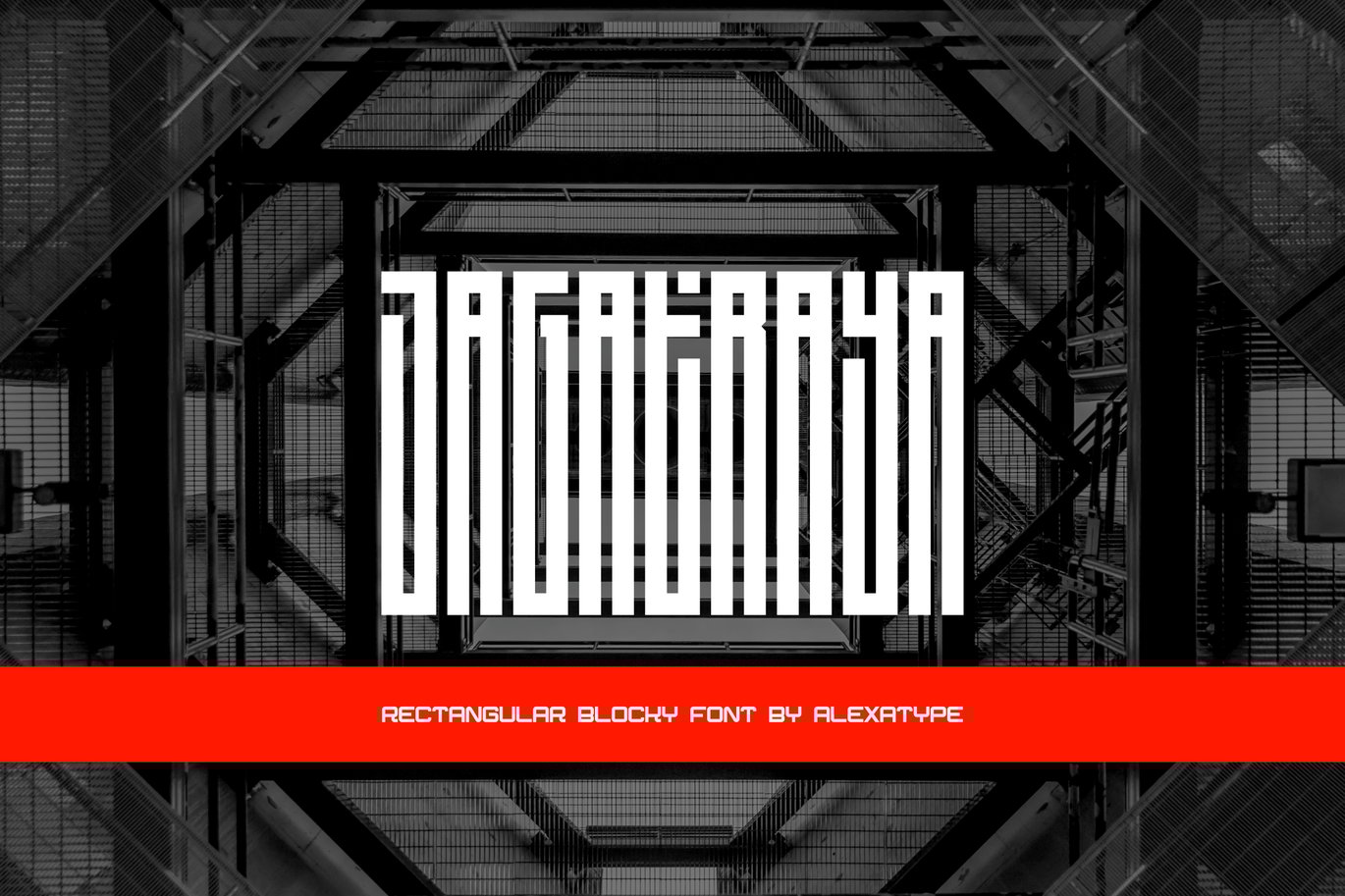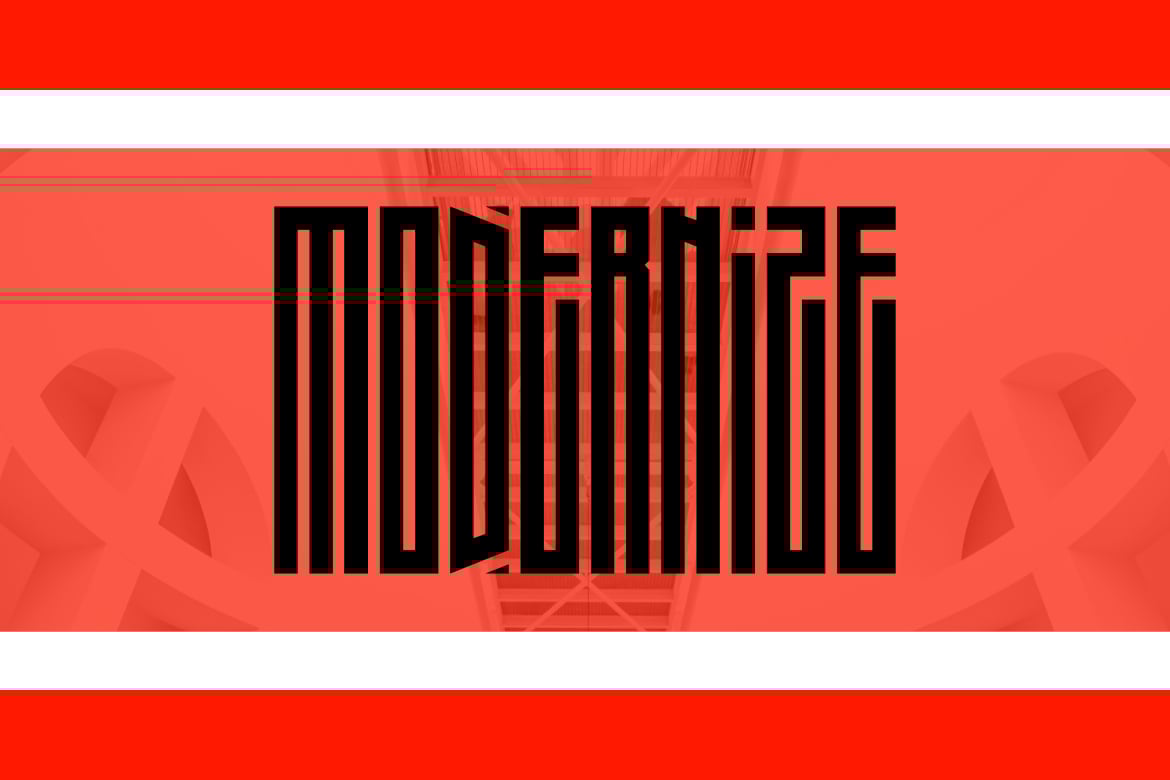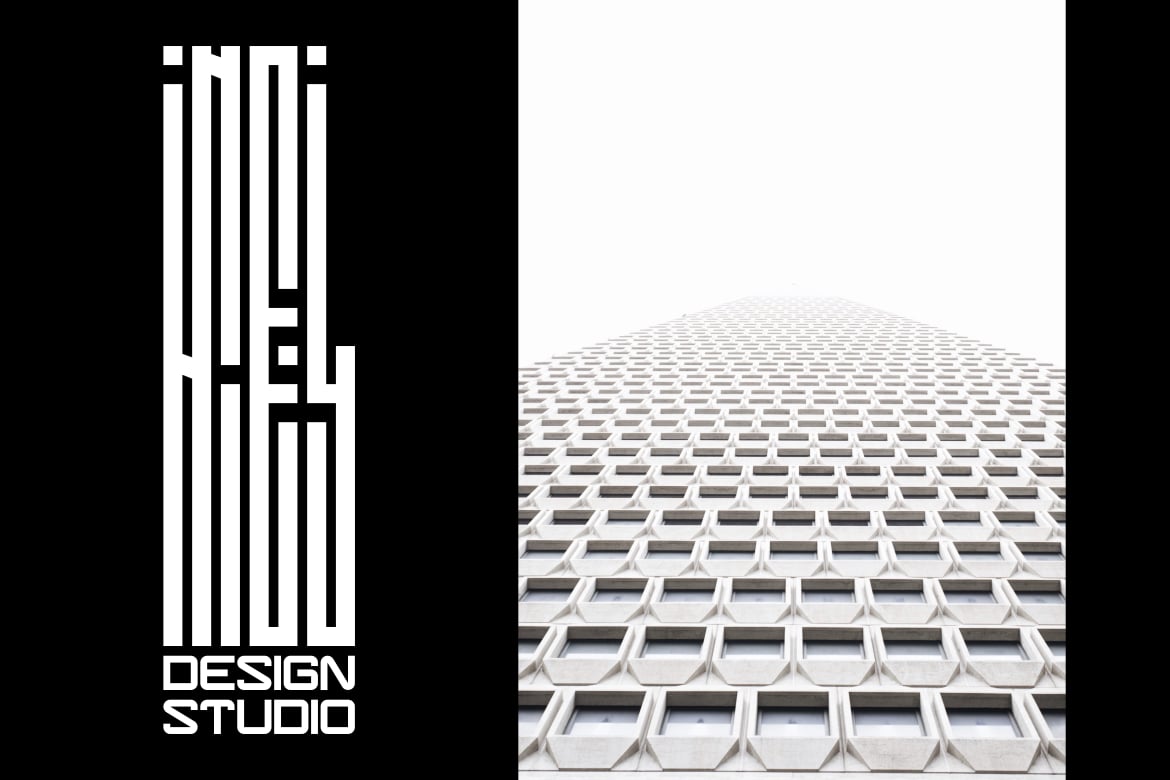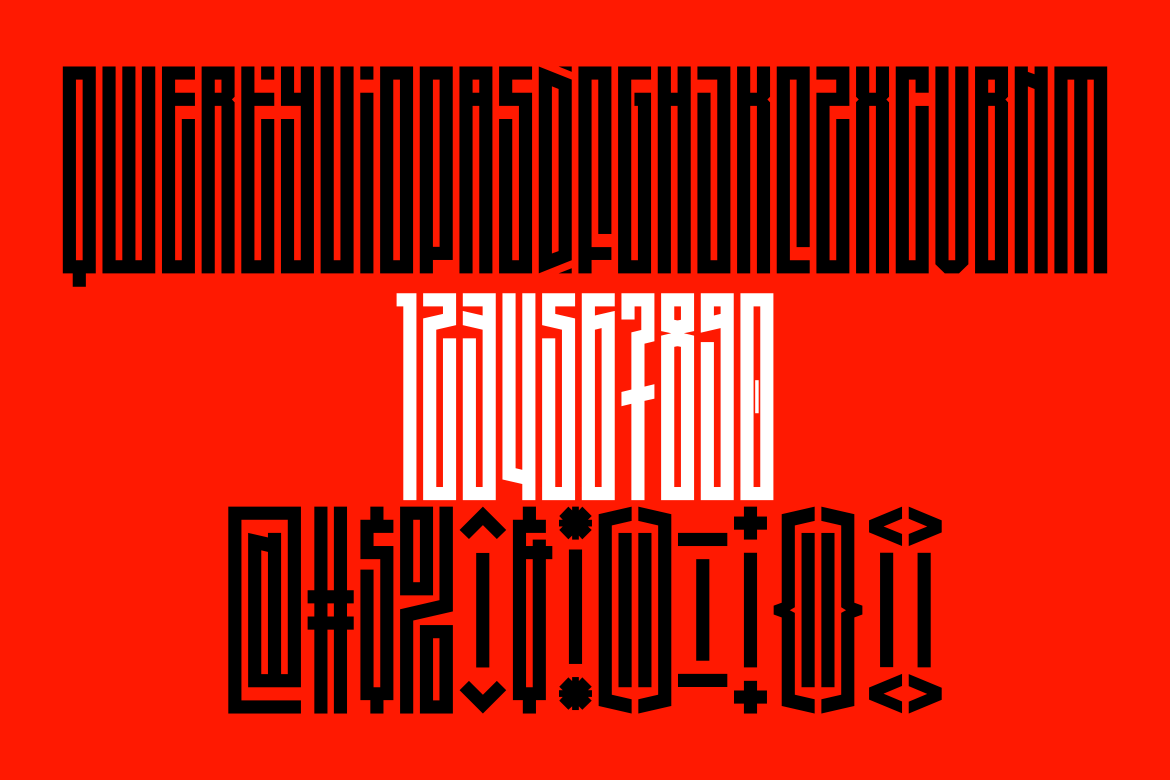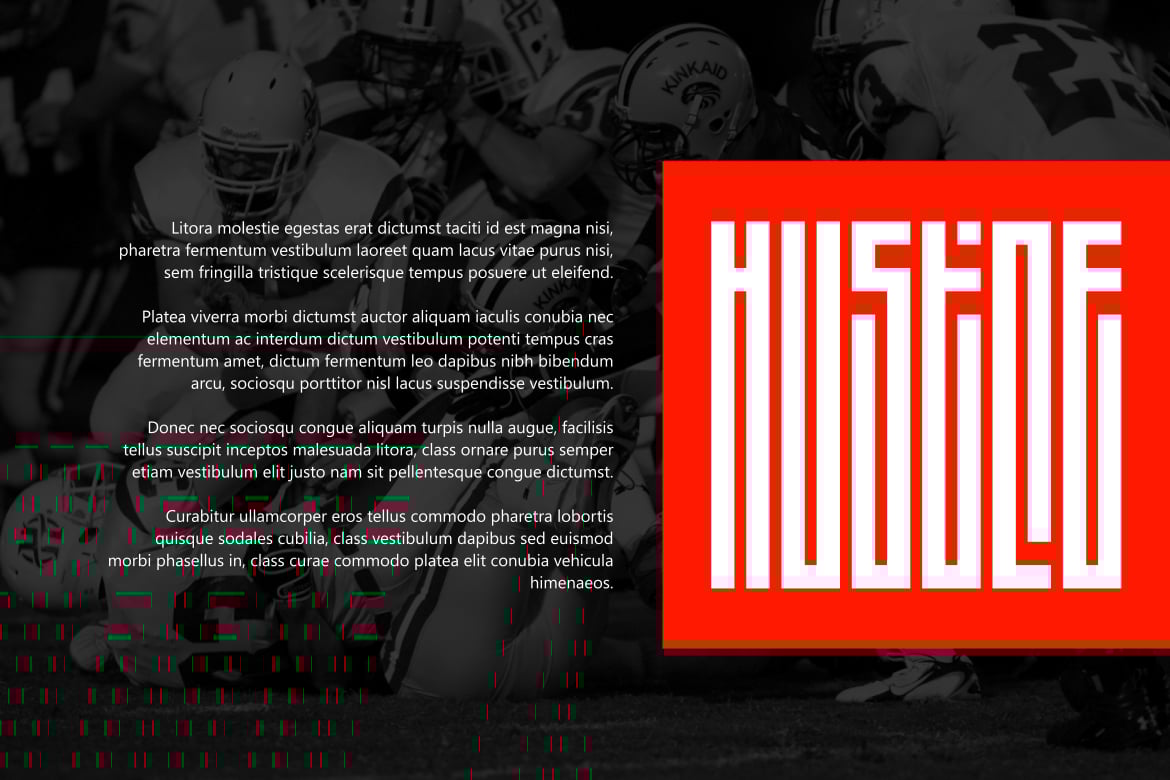
Ultra-Modern Font – Jagatraya
Jagatraya is a modern, high-impact display font inspired by architectural precision and futuristic aesthetics. With its tall, condensed letterforms and geometric structure, this font creates a striking presence in luxury branding, editorial layouts, and innovative design projects. Whether you’re crafting avant-garde posters, tech-inspired visuals, or high-end fashion branding, Jagatraya adds an air of sophistication and cutting-edge appeal.
Key Features
- Tall & Condensed Letterforms – A sleek, structured design that maximizes visual impact.
- Perfect for Editorial & Luxury Branding – Ideal for high-end fashion, architecture, and tech industries.
- Minimalist Yet Bold Aesthetic – Striking typography with a modernist edge.
- Versatile for Print & Digital – Works beautifully in posters, branding, and sleek UI designs.
Jagatraya is designed for brands, architects, and designers seeking a contemporary, statement-making font. Its elongated, geometric letterforms bring a sense of innovation and precision, making it perfect for modern magazine layouts, exhibition posters, and luxury product packaging. Whether used for high-end fashion editorials, art installations, or futuristic branding, Jagatraya commands attention with its bold, structured form.